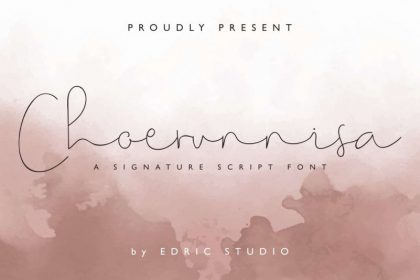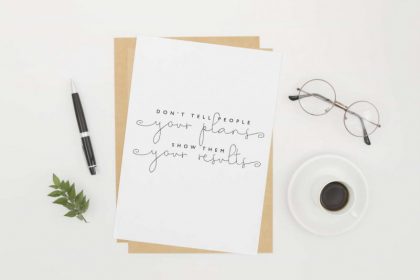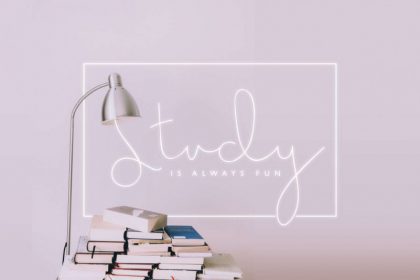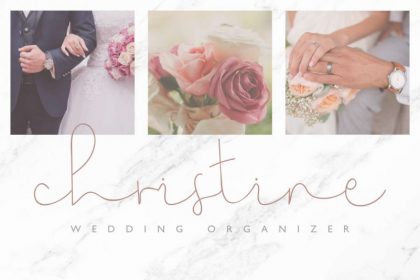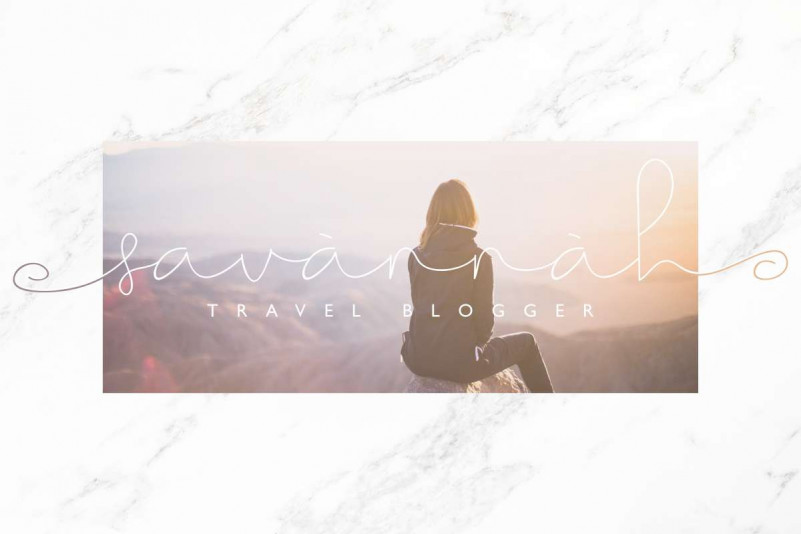
Choerunnisa Signature Font
Choerunnisa Signature Font – Hello Hello Everyone! We are back with our latest awesome Font : Choerunnisa. Choerunnisa Font is the newest handwriting font we made in 2019. It supports multi international languages characters. It will Work on PC & Mac with Simple installations. Accessible in the Adobe Illustrator, Adobe Photoshop, Adobe InDesign, even work on Microsoft Word. It’s also PUA Encoded Characters – Fully accessible without additional design software.